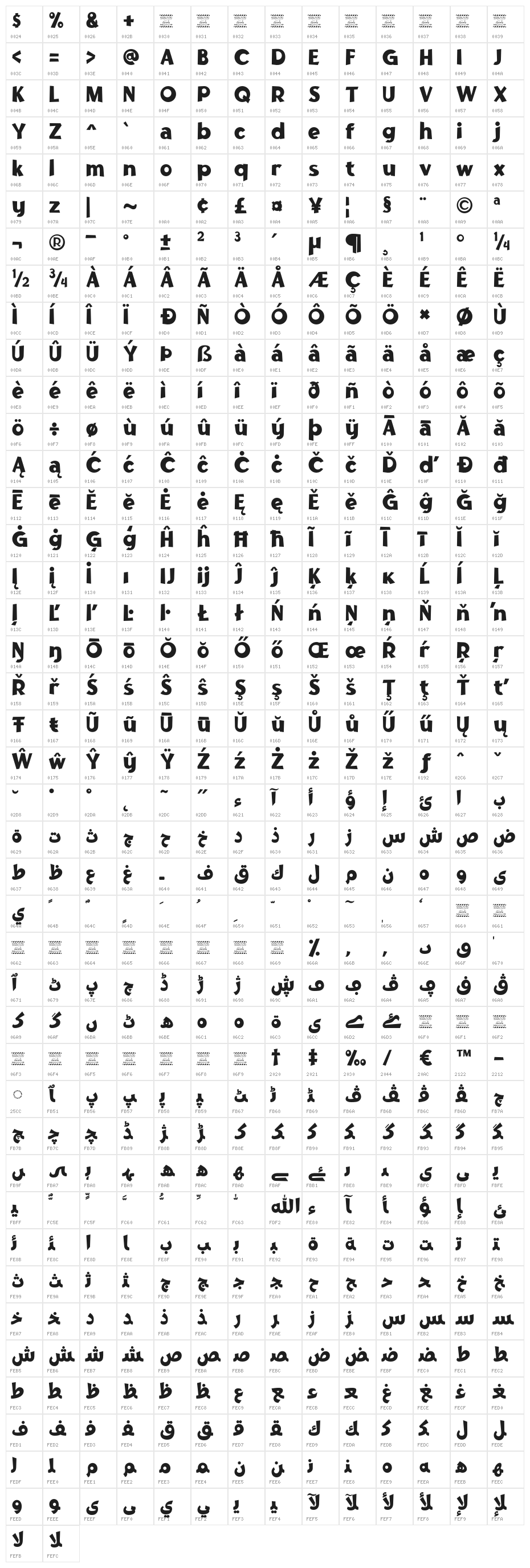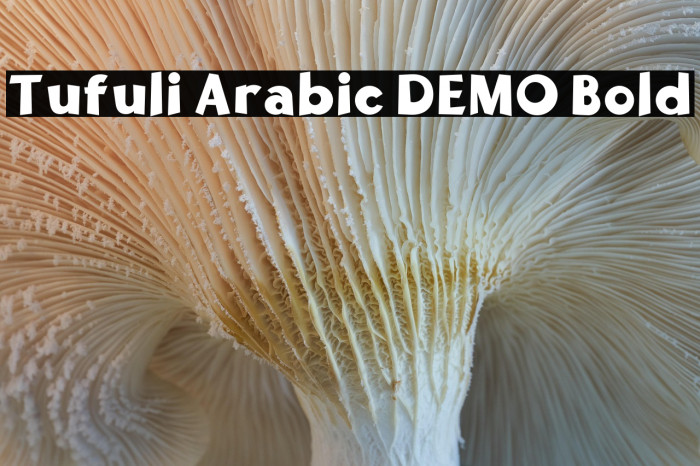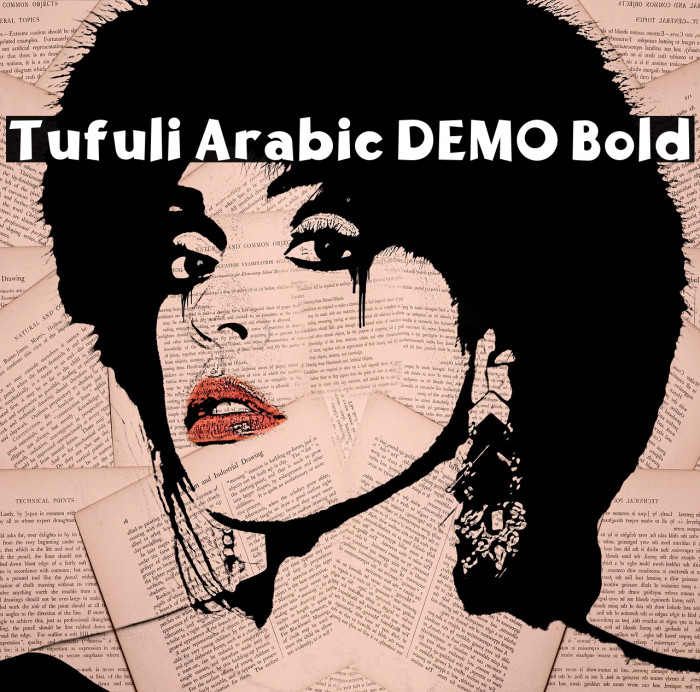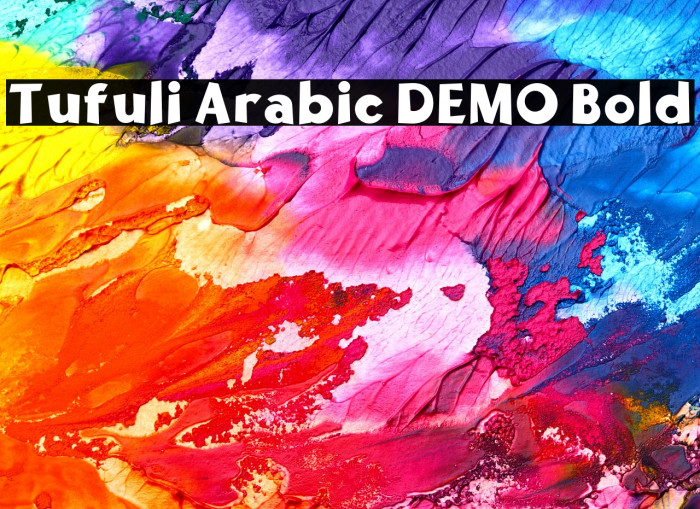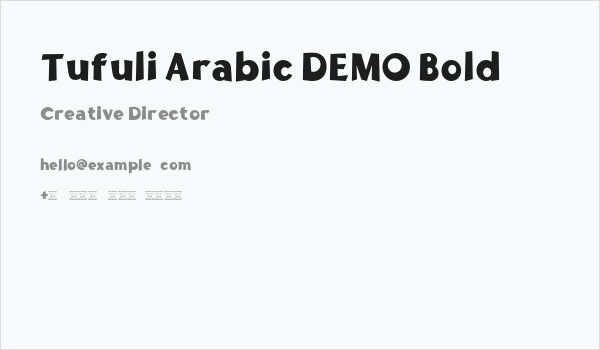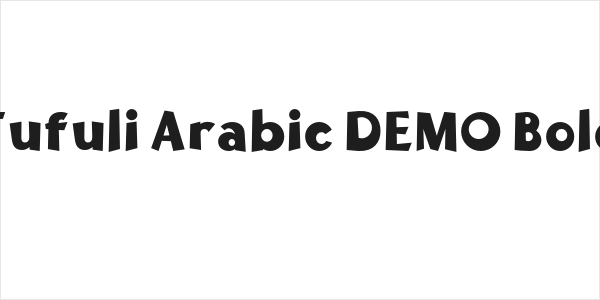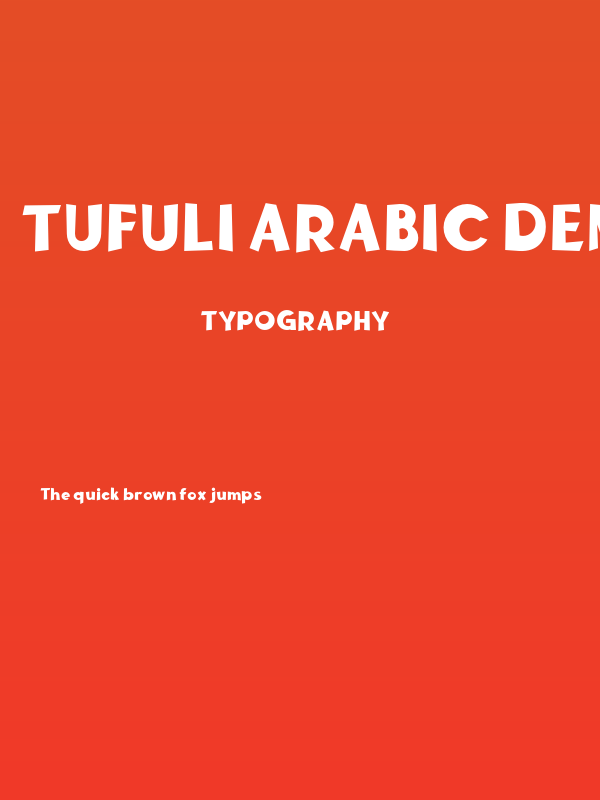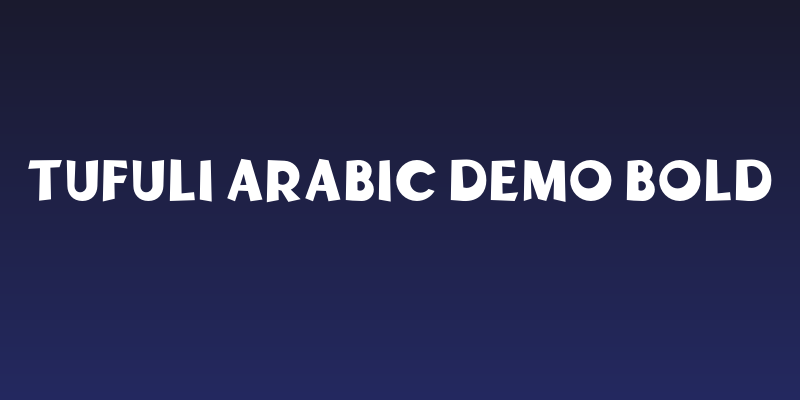
Tufuli Arabic DEMO Bold Font
Tufuli Arabic DEMO Bold Description
This font features bold, dynamic characters with a playful and slightly irregular design, giving it a unique and eye-catching appearance. The letters have a strong presence with thick strokes and a slightly condensed form, making them stand out prominently. The overall style is modern and decorative, suitable for creative and informal applications. The font includes both uppercase and lowercase letters, as well as numbers and a selection of special characters. Its boldness and distinctive style make it ideal for projects that require a strong visual impact.
| Proposed Projects | Ideal for posters, headlines, branding, and any creative project that requires a bold and distinctive typeface. |